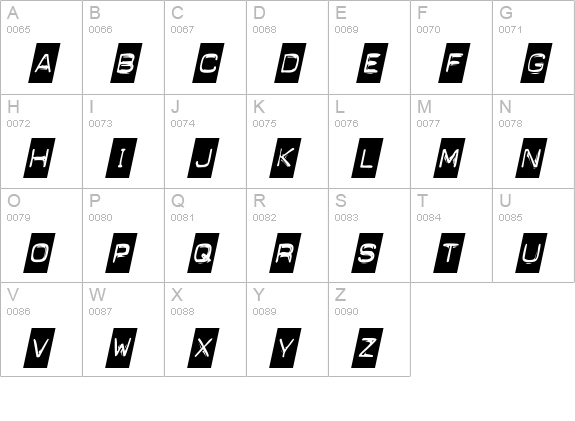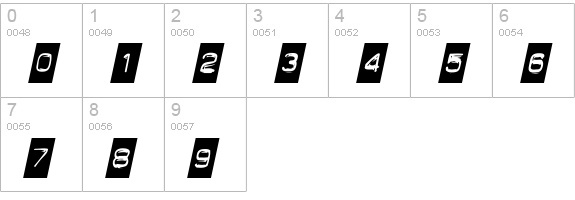
Blackout Italic is a distinctive, italic variant in the Blackout typeface family \xE2\x80\x94 well suited to design and typography projects.
Blackout Italic font is a modern and stylish typeface that adds a touch of sophistication to any design. Its sleek and edgy look makes it perfect for a variety of projects, from branding to editorial design. The italicized letterforms exude a sense of elegance and creativity, making this font a versatile choice for both digital and print applications. What sets Blackout Italic font apart is not only its striking appearance but also the fact that it is available for free download at FontsMarket.com. This means that you can easily access and use this high-quality font in your projects without any cost involved. Whether you're working on a personal project or a professional assignment, Blackout Italic font is sure to elevate your work with its unique and captivating style. Download it now and unleash your creativity with this exceptional typeface.